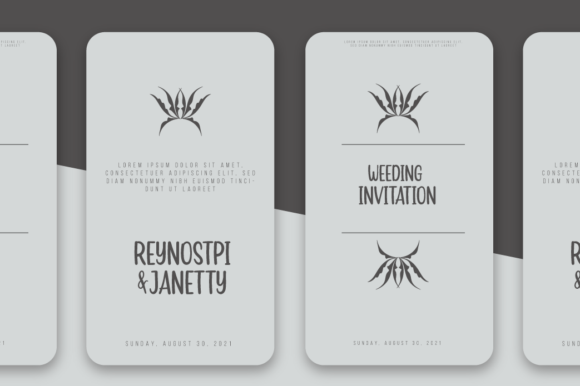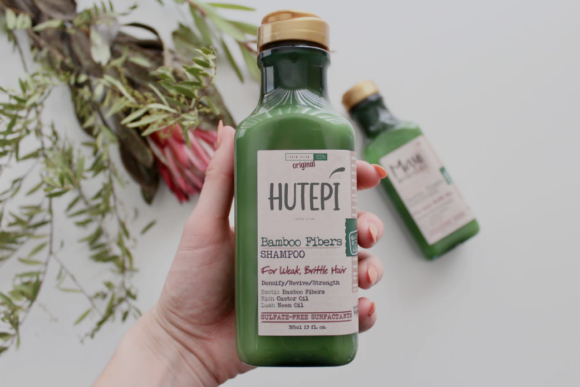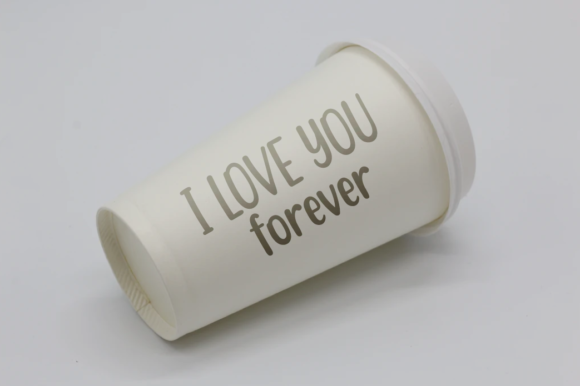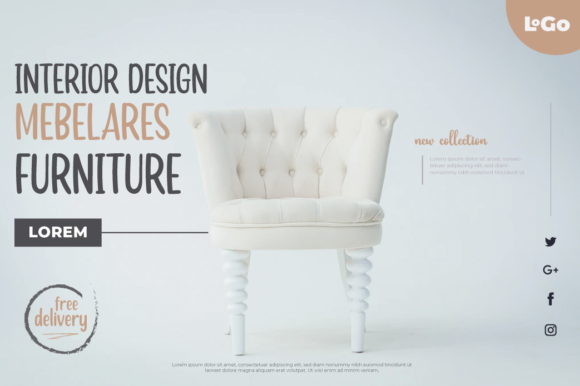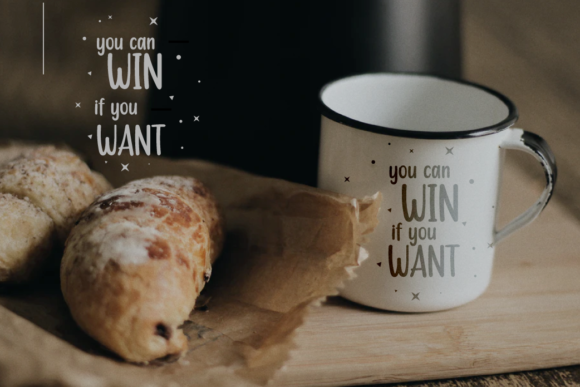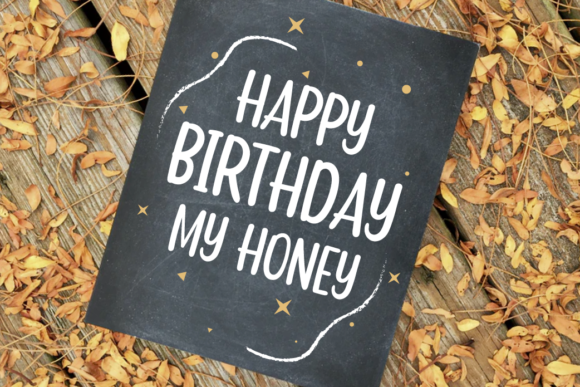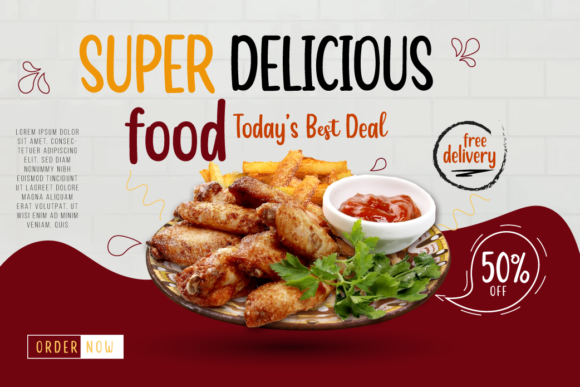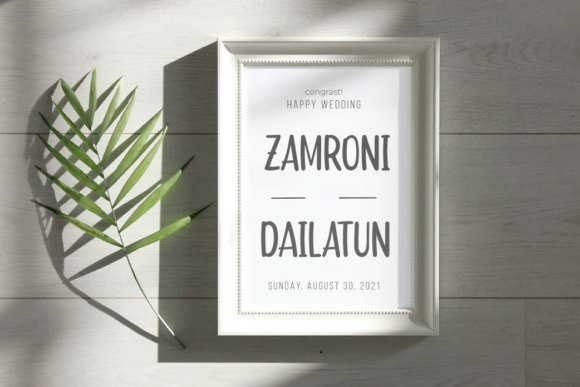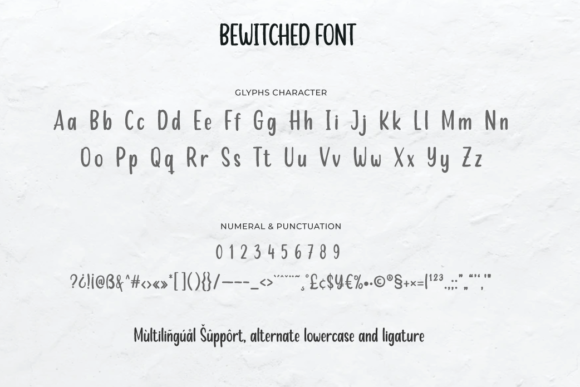
Bewitched Font
About Bewitched Font
Bewitched is a simple and adaptable handwritten font that brings a touch of charm and versatility to your designs. With its clean and legible letterforms, this font can easily be matched to a wide range of projects, making it a valuable asset in your creative toolkit.
The simplicity of Bewitched is what sets it apart. The clean lines and balanced proportions of its characters give it a modern and contemporary feel, while still retaining a sense of warmth and friendliness. This makes it a perfect choice for various design applications, from branding and advertising to social media graphics and website design.
The adaptability of Bewitched lies in its ability to effortlessly blend into different design styles and contexts. Whether you’re working on a minimalist logo, a whimsical invitation, or a playful poster, Bewitched can be customized to match the tone and personality of your project. Its neutral appearance allows it to complement other design elements and create a harmonious visual composition.
One of the strengths of Bewitched is its legibility. The clean and well-defined letterforms ensure that your message is easily read and understood. This makes it suitable for a wide range of applications, including headlines, titles, body text, and captions. Whether used in print or digital media, Bewitched delivers clarity and readability, enhancing the overall user experience.
Bewitched is designed to make your creative ideas stand out. Its simplicity allows it to serve as a versatile canvas for your unique concepts and designs. Experiment with different colors, textures, and layouts to create eye-catching compositions that capture attention and engage your audience. Whether you’re designing for a personal project or a client, Bewitched can bring a touch of magic to your work.
In conclusion, Bewitched is a simple and adaptable handwritten font that adds charm and versatility to your designs. Its clean and legible letterforms, coupled with its adaptability, make it a perfect choice for a wide range of projects. Add Bewitched to your creative ideas and notice how it helps your designs stand out with its understated elegance and timeless appeal.